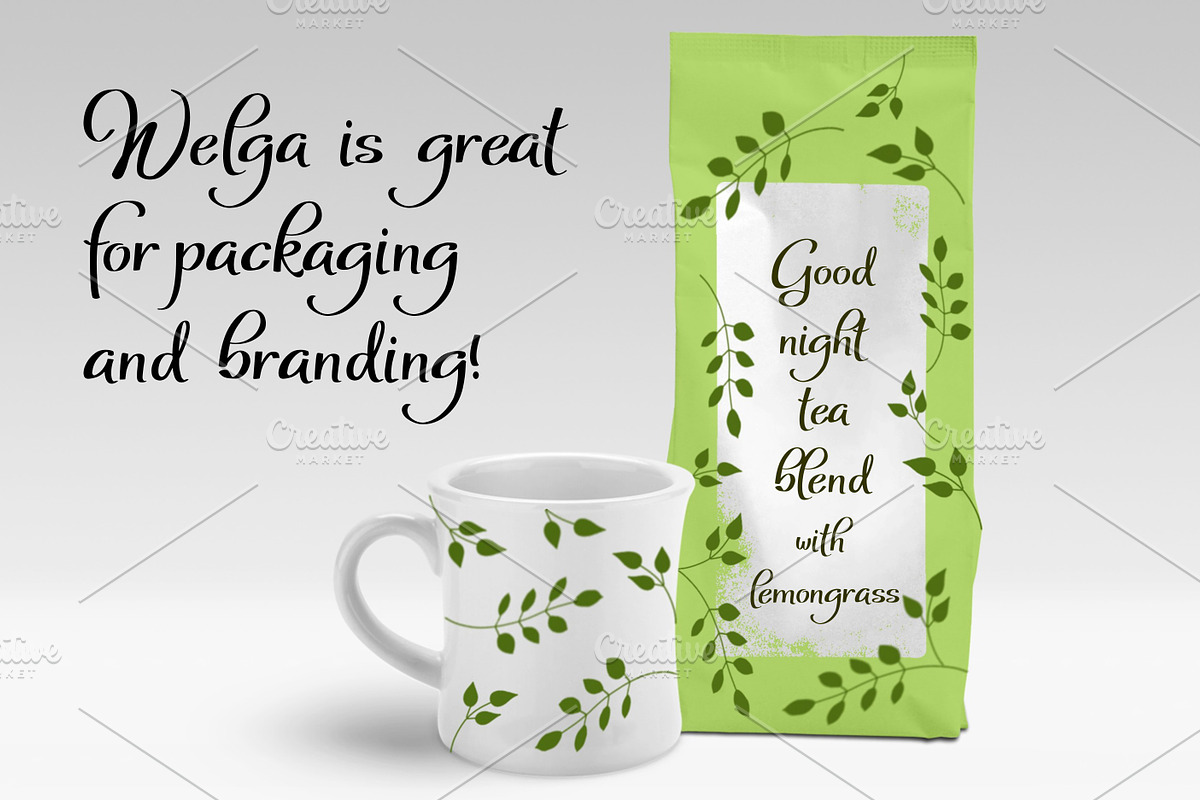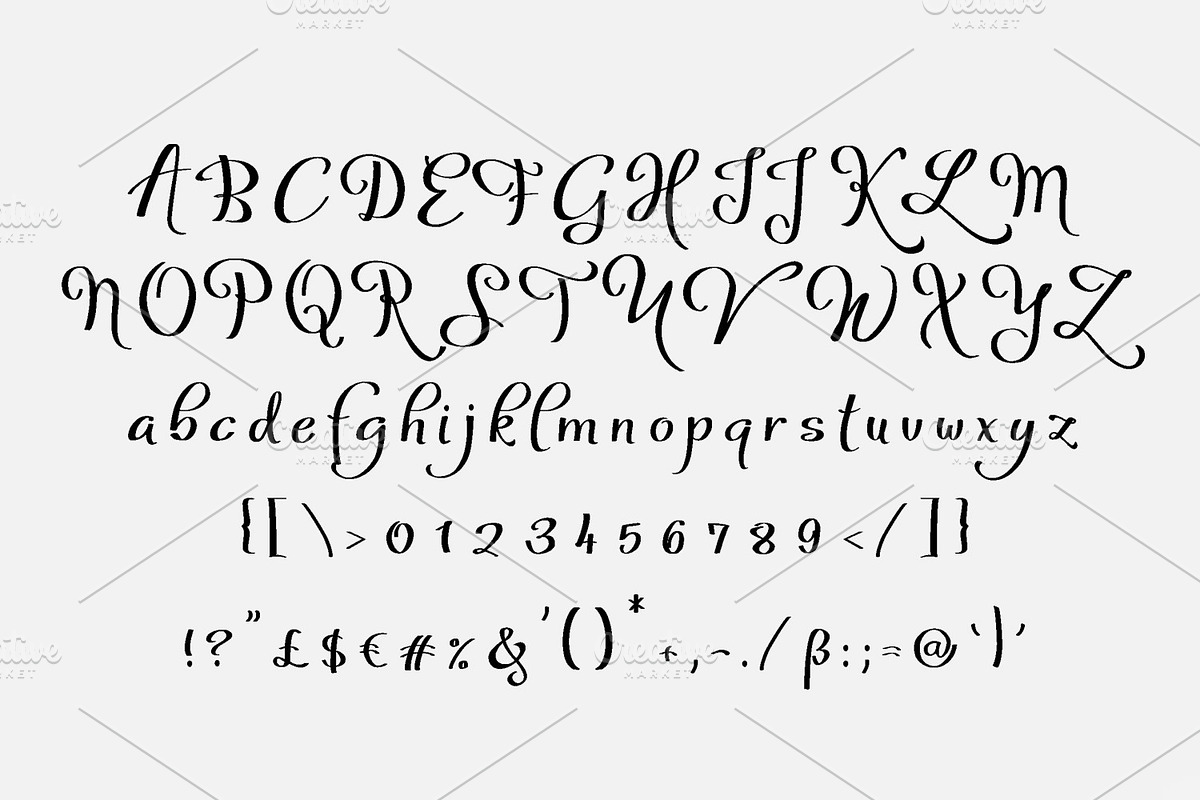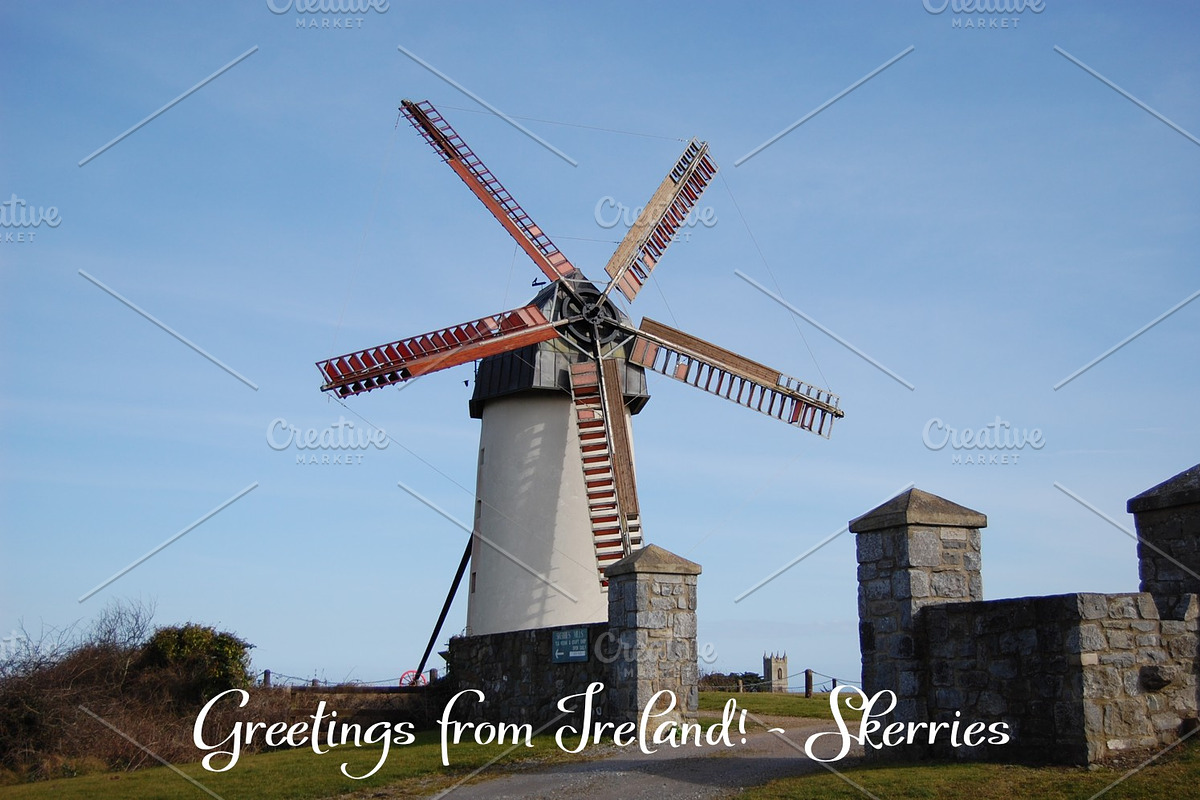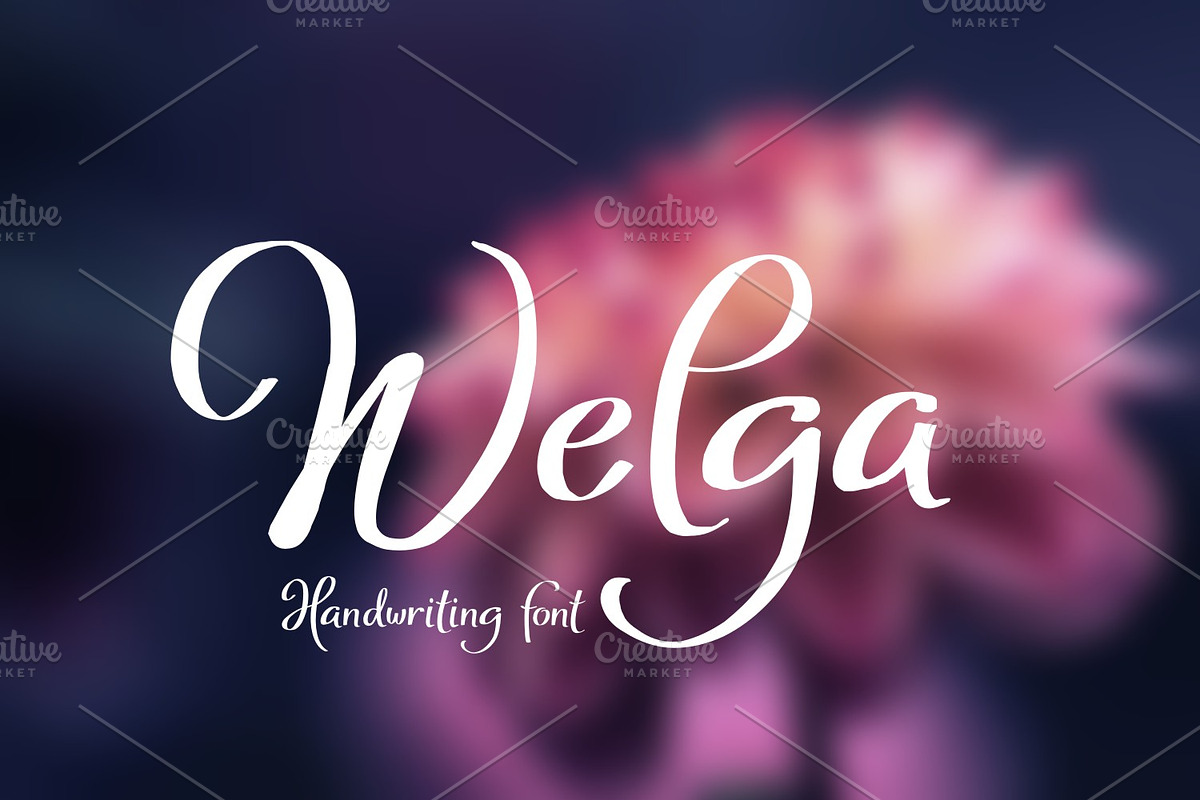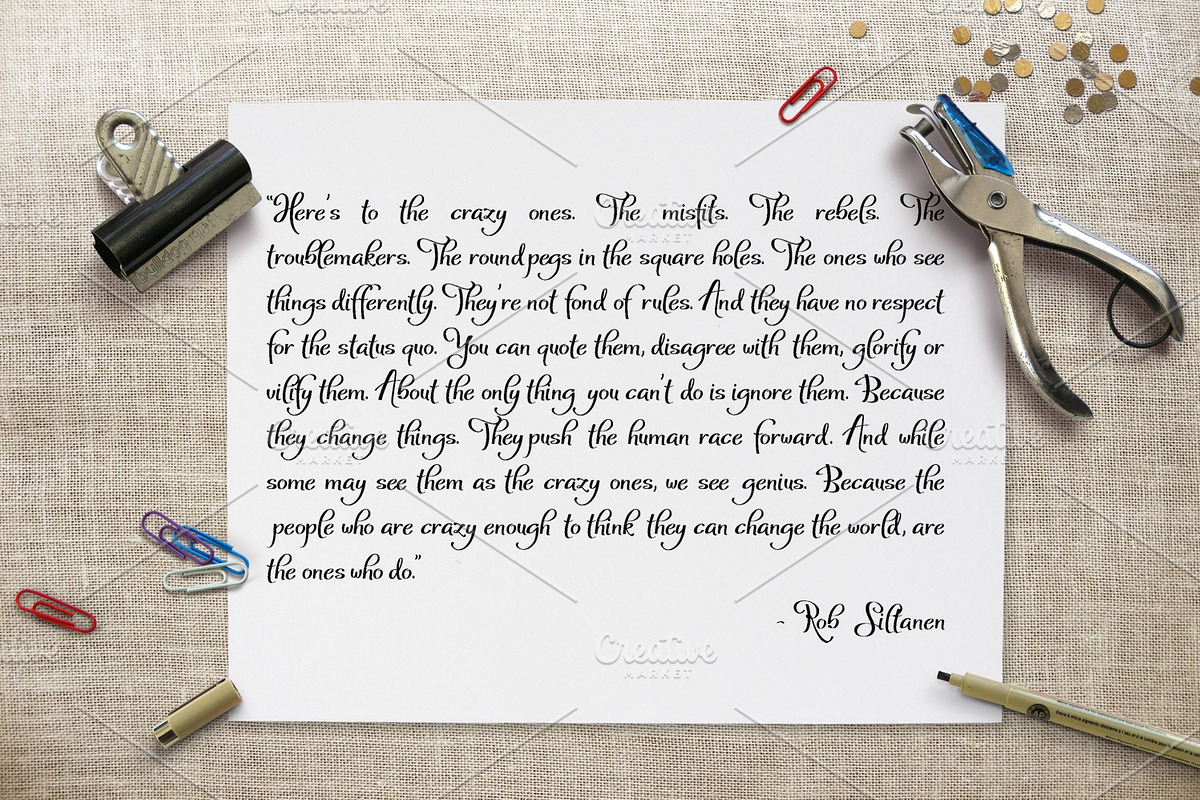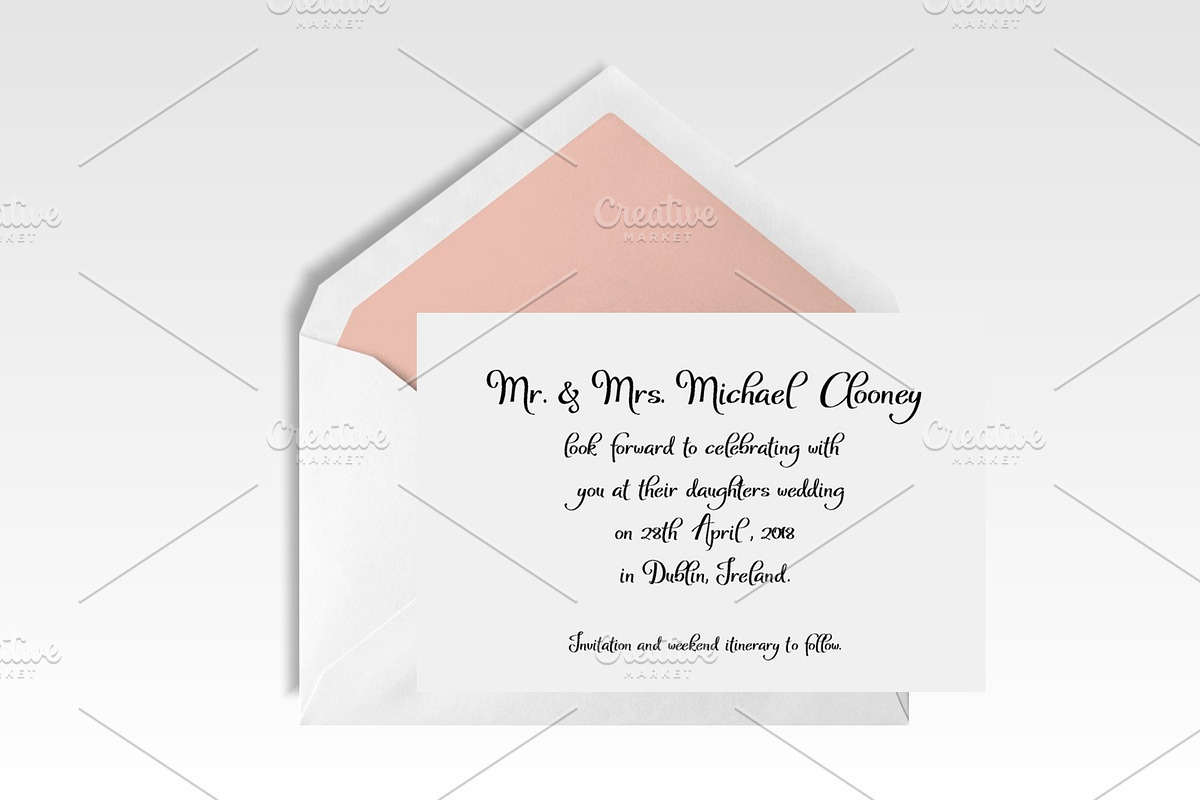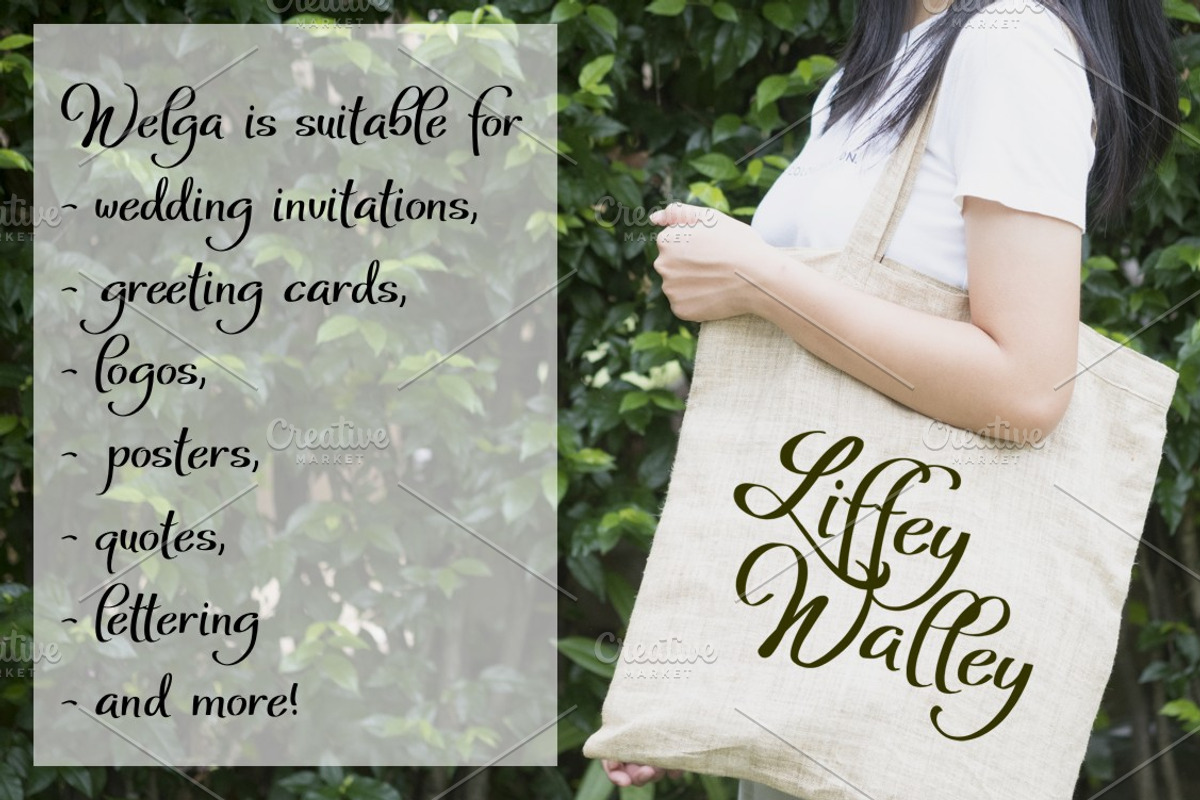
Welga
Introducing Welga hand lettered typeface.
Why Welga is worth a look
Welga by Digital Typeface Studio fits naturally into Branding, posters, packaging, typography.